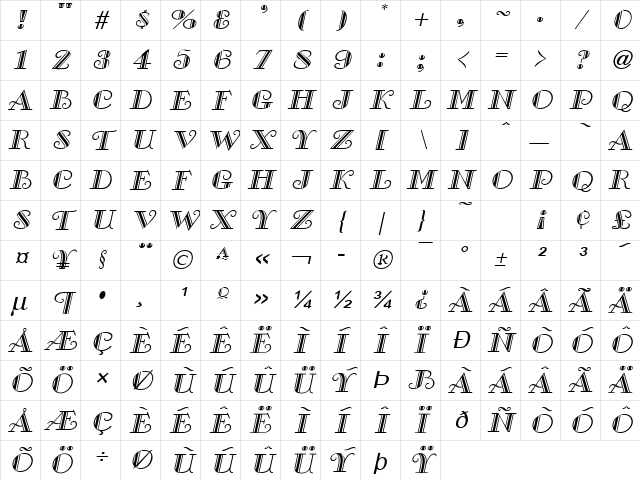
Gallery Italic
Design Context for Gallery
Gallery is a composed and adaptable typeface that performs quietly and consistently across a wide range of design contexts. The slanted form adds forward momentum and visual energy.
Pro Tip: Use Gallery for emphasis, pull quotes, and subheadings where its slanted energy can add rhythm to the layout.